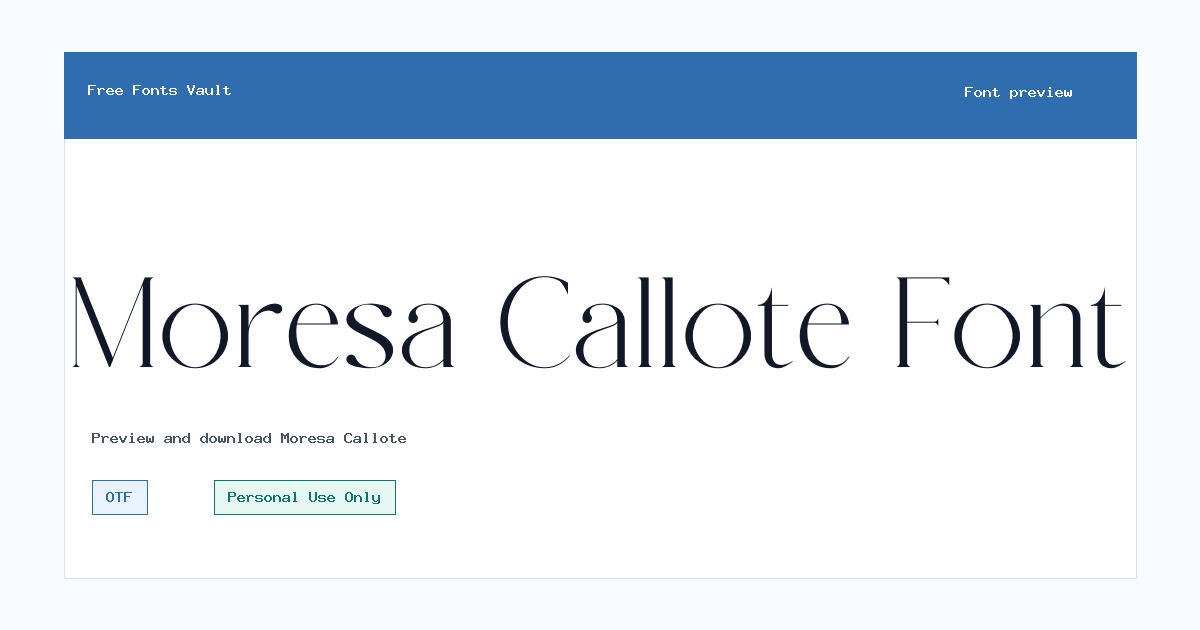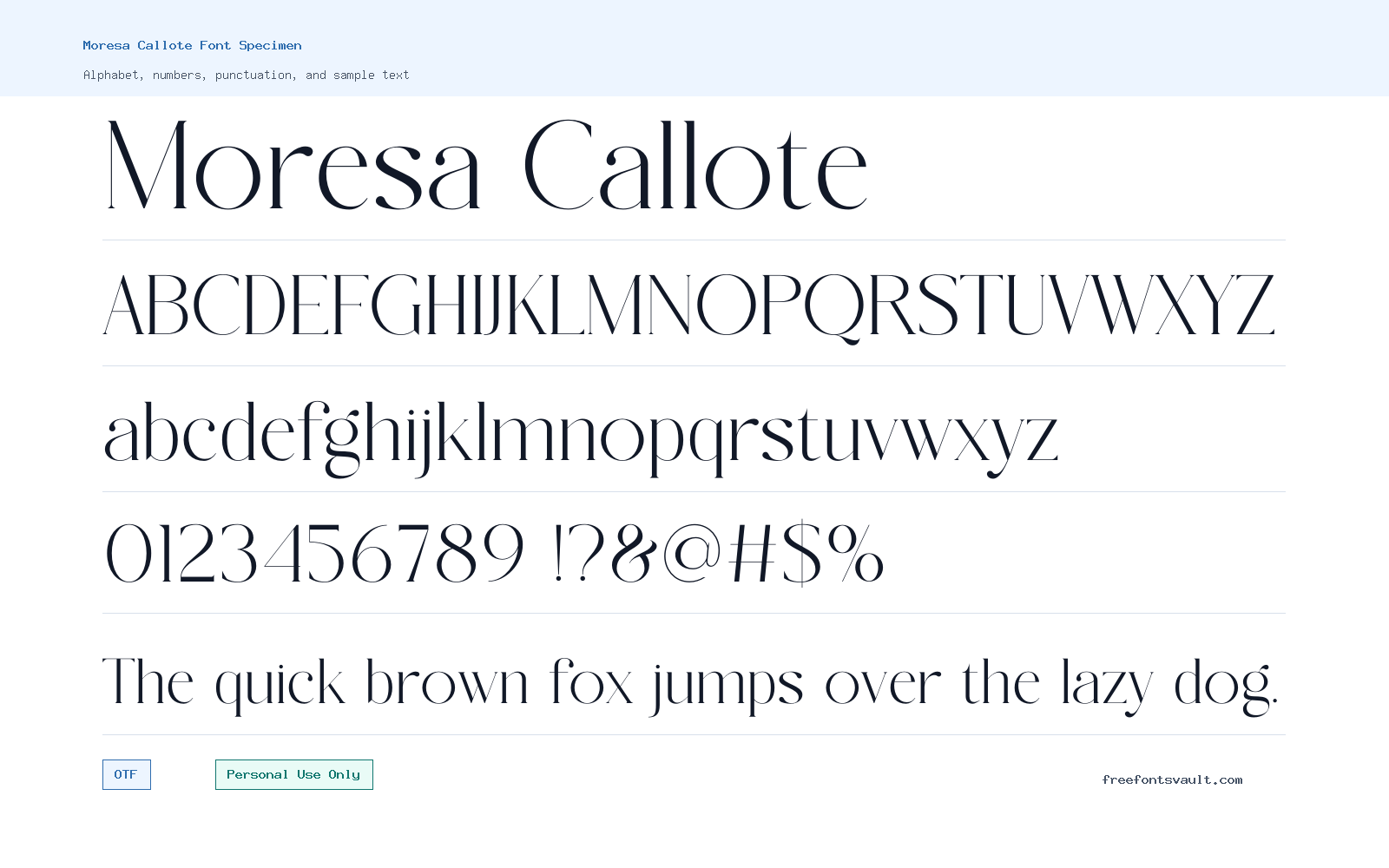
Moresa Callote
- Designer Muflieart
Moresa Callote is a serif font with a decorative display feel, suited to visitors who want a stylish typeface for personal projects, previews, and short pieces of text.
About Moresa Callote
Moresa Callote works best when you give it space. Its serif style makes it a better fit for titles, names, covers, invitations, quote graphics, packaging mockups, and other places where the font can be seen as a design feature. Use the preview box to test the exact words you plan to set, especially if your design depends on names, brand-style headings, or short phrases. A font like this can look strong in a large size but may lose some character if it is forced into small body text.
For practical layout work, start with a short headline and compare it against a clean supporting font. A simple sans serif or quiet book-style serif can help Moresa Callote stand out without making the design feel crowded. Try it with wide spacing, centered text, and generous margins before adding extra effects. If you use it on social posts, cards, thumbnails, or printable personal designs, check the preview at both large and small sizes. Pay close attention to uppercase letters, repeated letters, punctuation, and numbers, because display fonts can vary in how evenly they handle different text combinations.
- Serif display style for short, decorative text and headline-focused designs.
- Personal invitations, greeting cards, quote graphics, and decorative headings.
- Logo drafts, packaging mockups, cover titles, name designs, and social media artwork for non-commercial use.
What kind of font is Moresa Callote?
Moresa Callote is listed as a serif font, and it is most useful as a display choice for short text, headings, and decorative personal designs.
Who designed Moresa Callote?
The designer name listed for Moresa Callote is Muflieart.
Is Moresa Callote good for body text?
It is better treated as a display font. For paragraphs or small text, use a simpler companion font and keep Moresa Callote for titles or accents.